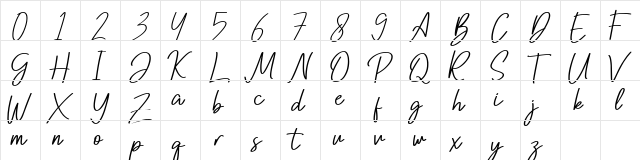
Nottingham Regular
| Designer | Jefri Dwi Alfatah |
Design Context for Nottingham Typeface
Nottingham is a composed and adaptable typeface that performs quietly and consistently across a wide range of design contexts.